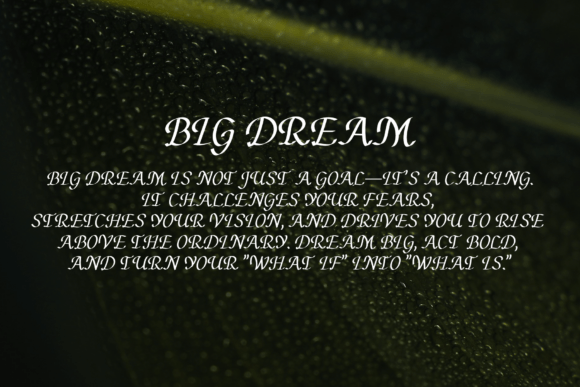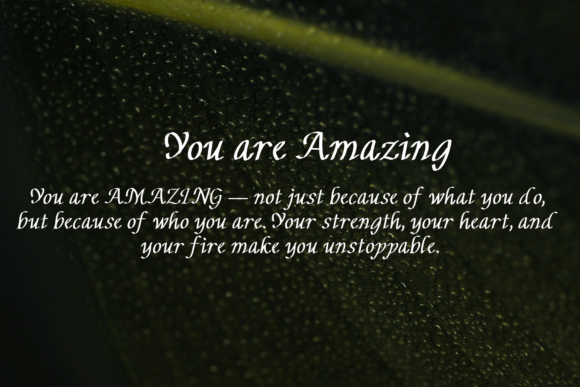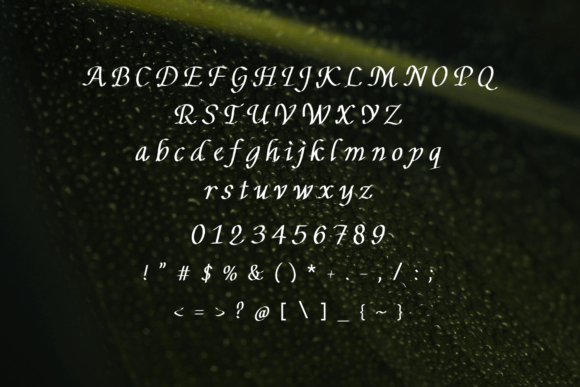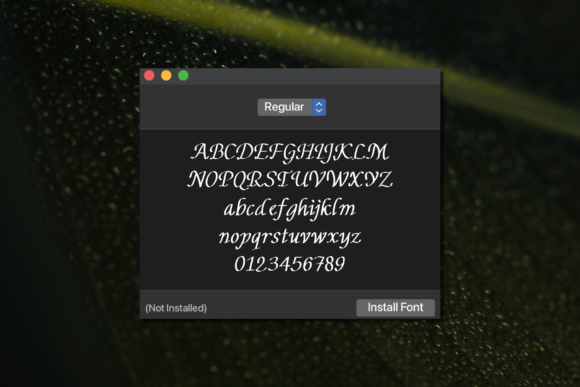
Introduction to Moroteko Font
Moroteko blends the charm of handwritten strokes with the structure of a serif font.
Its organic shapes and subtle imperfections make it feel personal and authenticโideal for natural products, handmade branding, quotes, or personal blogs This font adds a warm, human touch to your designs.
Key Features of Moroteko Font
Why Choose Moroteko Font?
Moroteko Font offers exceptional quality and versatility, making it a valuable addition to your design toolkit. Whether you’re creating for personal projects or commercial use, Moroteko Font delivers professional results.